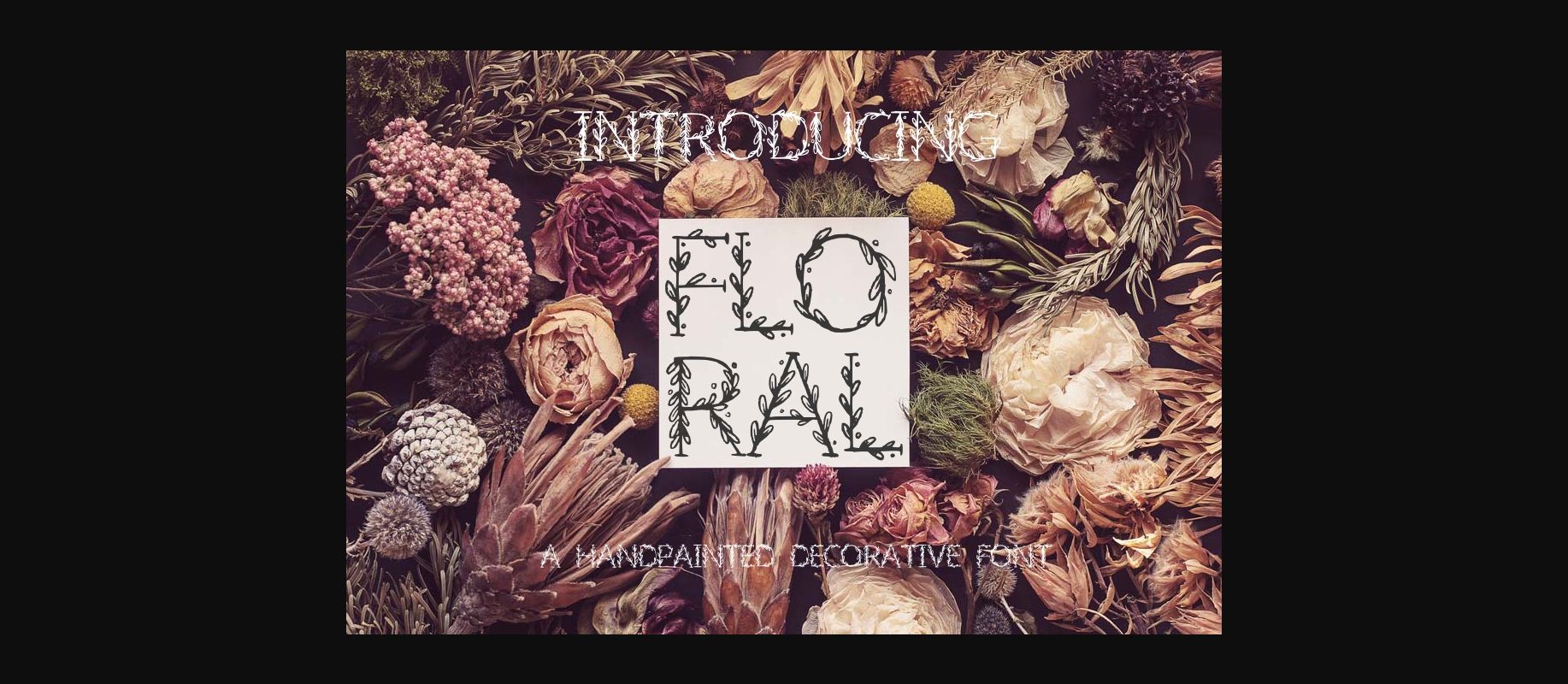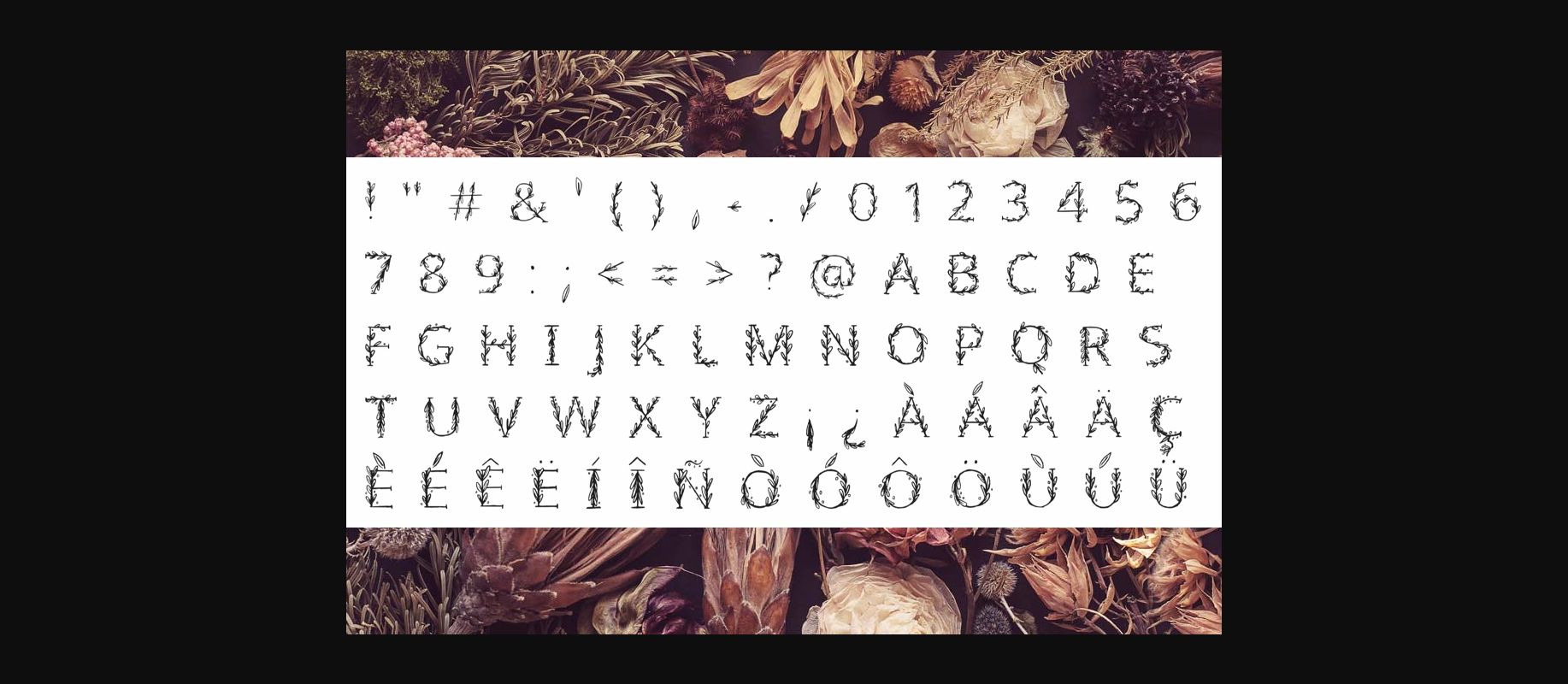
HomeDecorative FontsFloral Font Decorative Fonts Floral Font FacebookTwitterPinterestWhatsApp 1 of 4 ... Floral Font Poster 2... Floral Font Poster 3... Floral Font Poster 4... About Floral Font Floral is unique all-caps flower-themed typeface. Get inspired by its green-friendly charm! DOWNLOAD NOW 139 0 People also explored Melody Font Vacation Font Gooster Font Stayhome Font Marybeth Font Notograph Badass Holliday Duo Font Beauty Christmas Font Almond Nut Font Dalipan Font Refia Font Theodale Font TagsFloralFloral Font Previous articleParaleaf FontNext articleLovebug Font LEAVE A REPLY Cancel reply Comment: Please enter your comment! Name:* Please enter your name here Email:* You have entered an incorrect email address! Please enter your email address here Website: Save my name, email, and website in this browser for the next time I comment. Unlock Endless Creativity with the FREE September Clipart Huge Bundle (Valued at $700!) Personal Use Free Kitchen Blue Personal Use Free Read more Cinderella Personal Use Free Read more Darla Personal Use Free Read more Black Jalal Personal Use Free Read more BLOG Free Fonts Risk: Why Free Fonts Can Be Dangerous for Designers Free Fonts Risk: Why Free Fonts Can Be Dangerous for Designers Using free fonts is a common practice in web and graphic design. However, the... The 10 Best Handwriting Fonts to Add Personality to Your Designs Where to Buy American Fonts Online in 2024 To increase your work productivity, choose the most readable fonts.